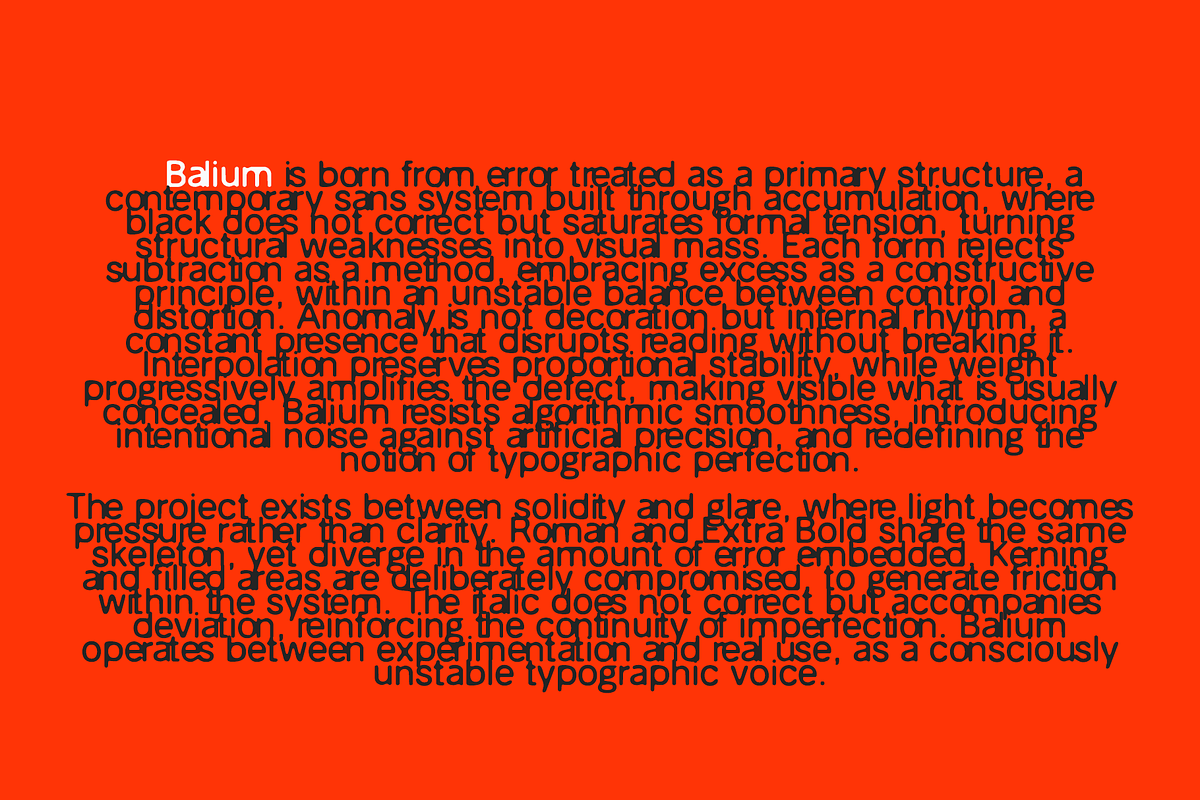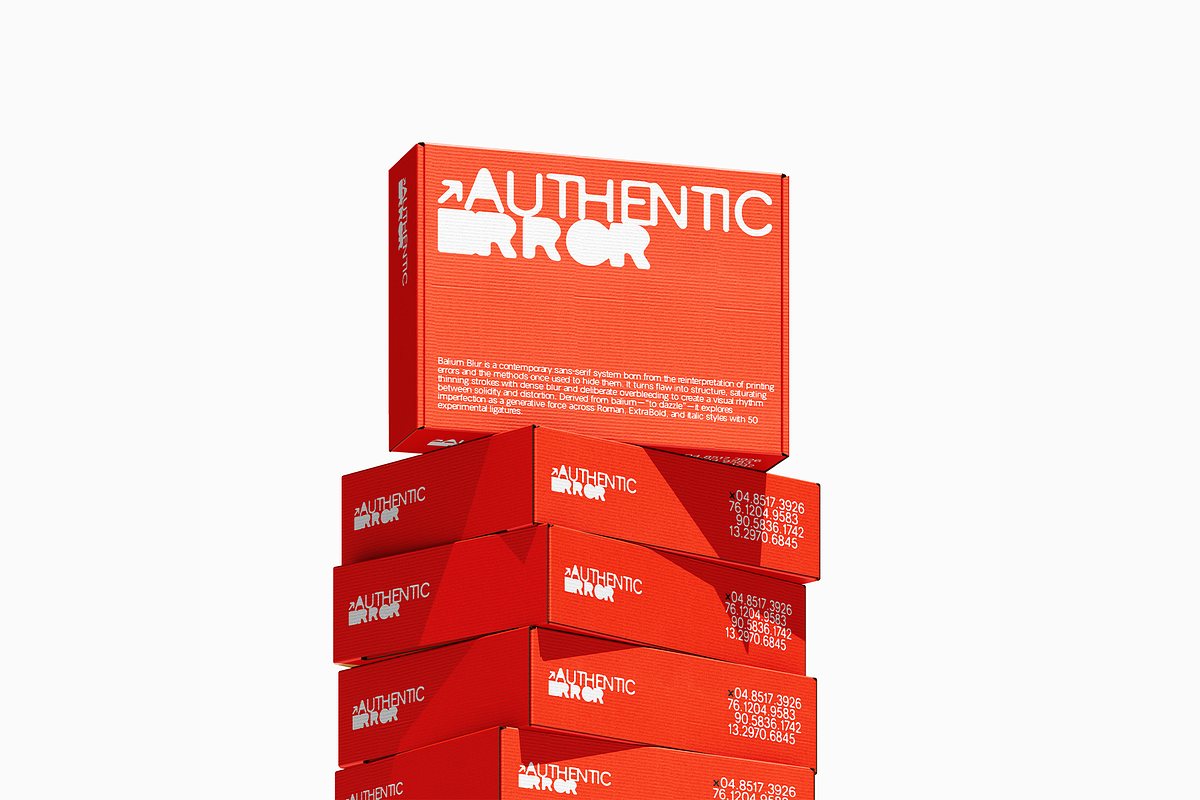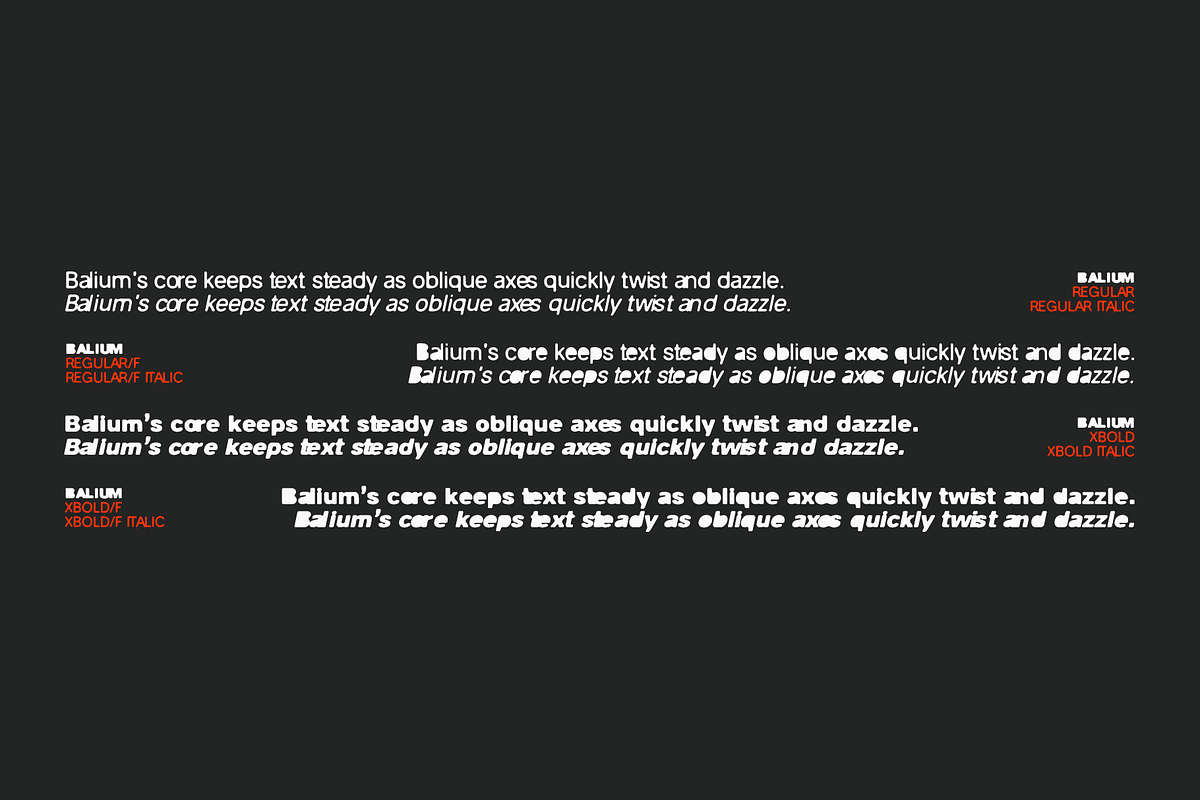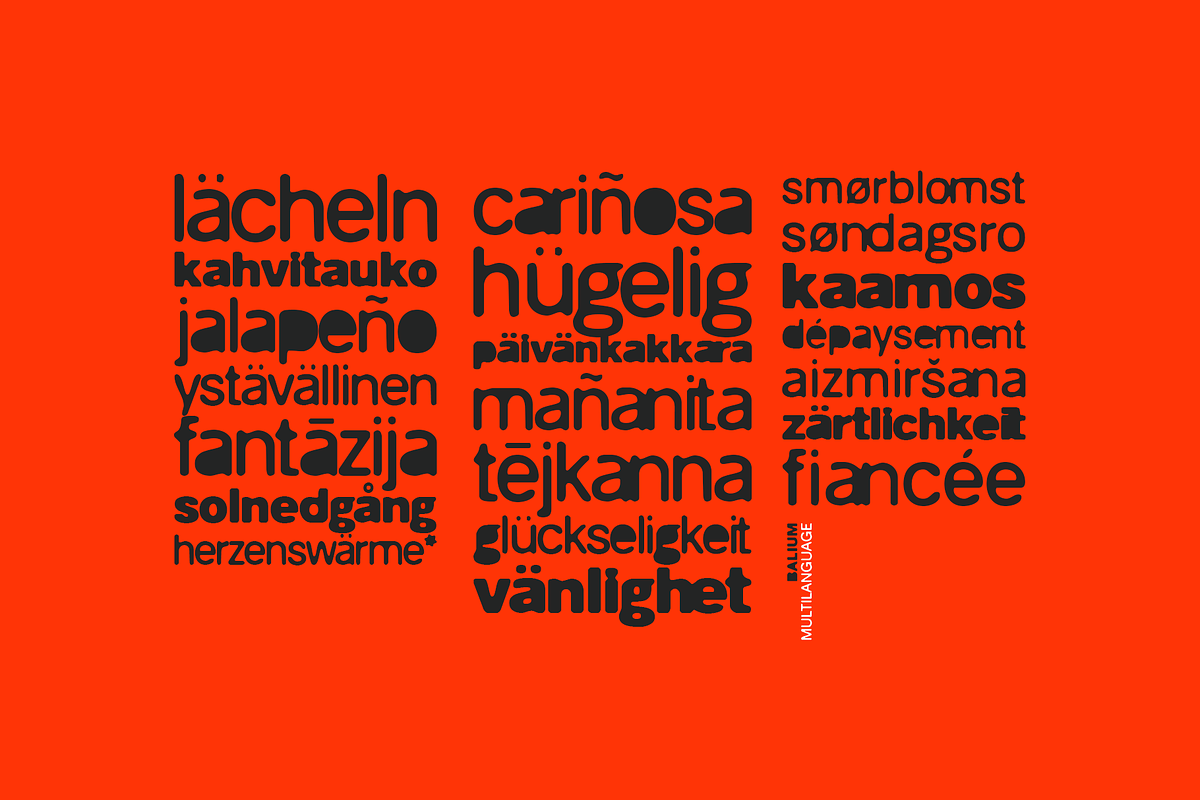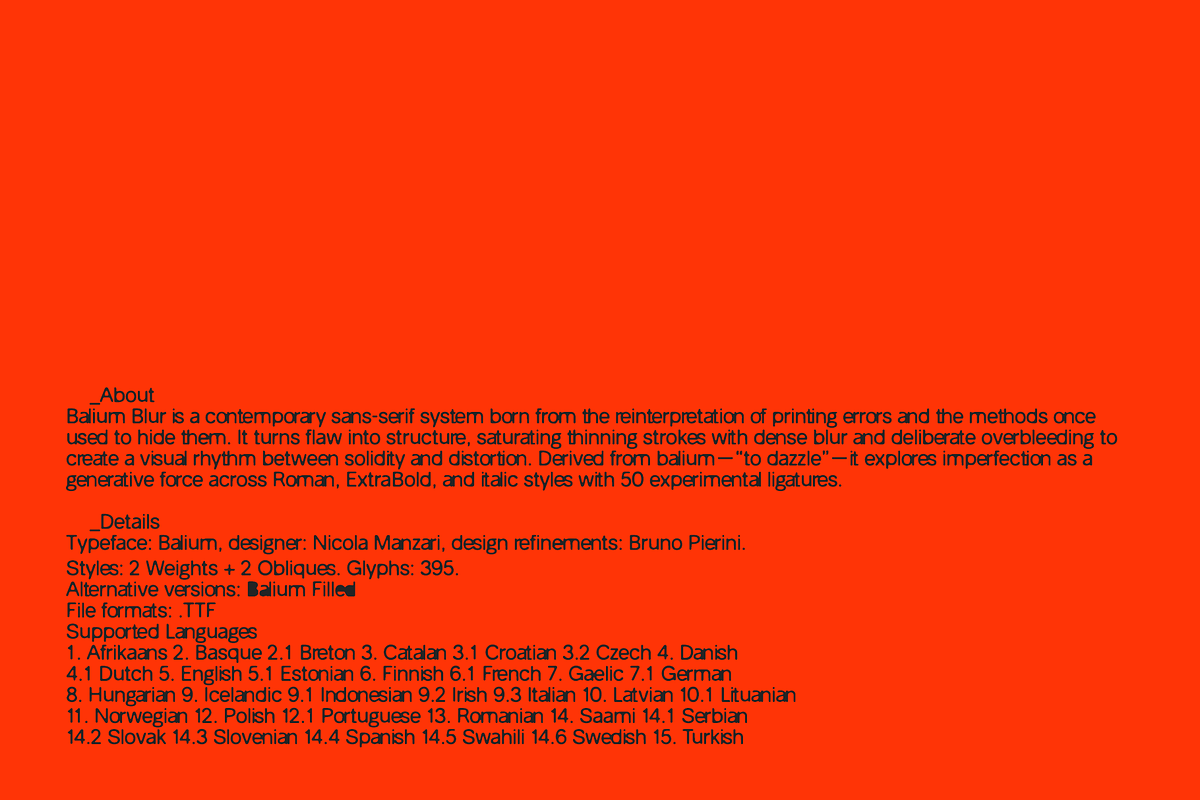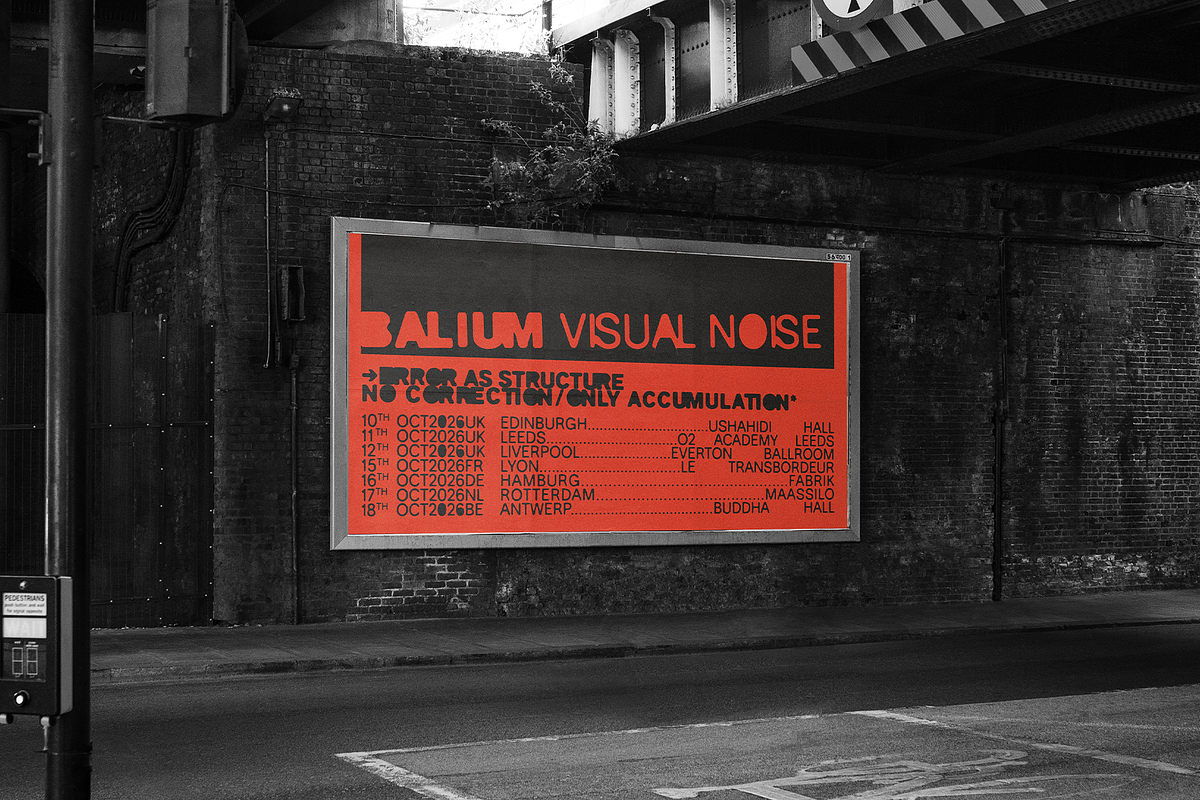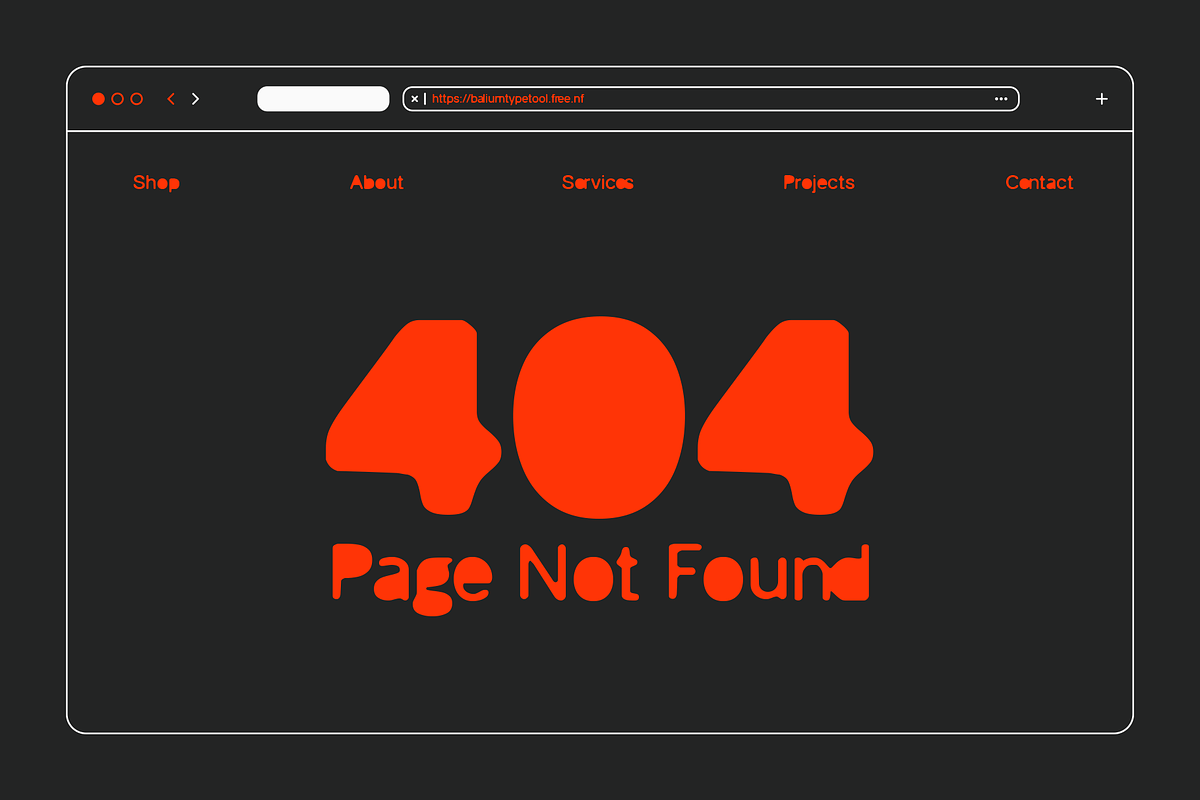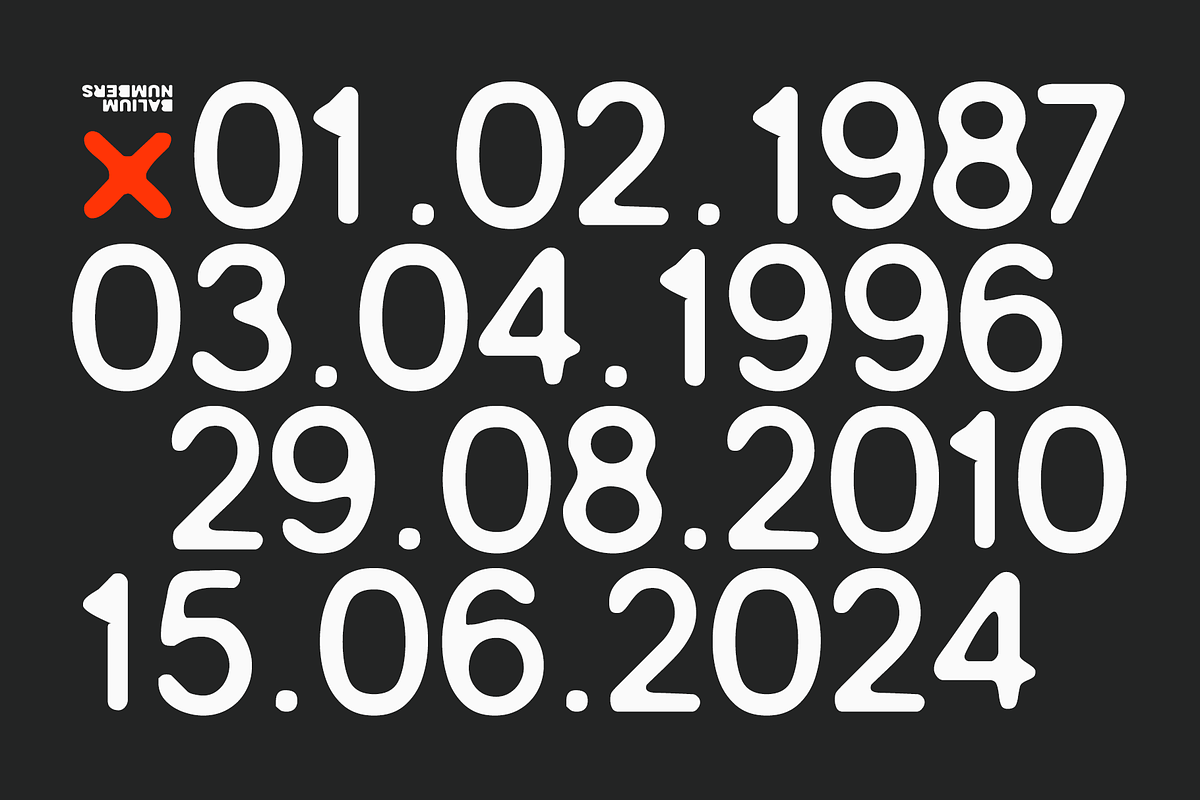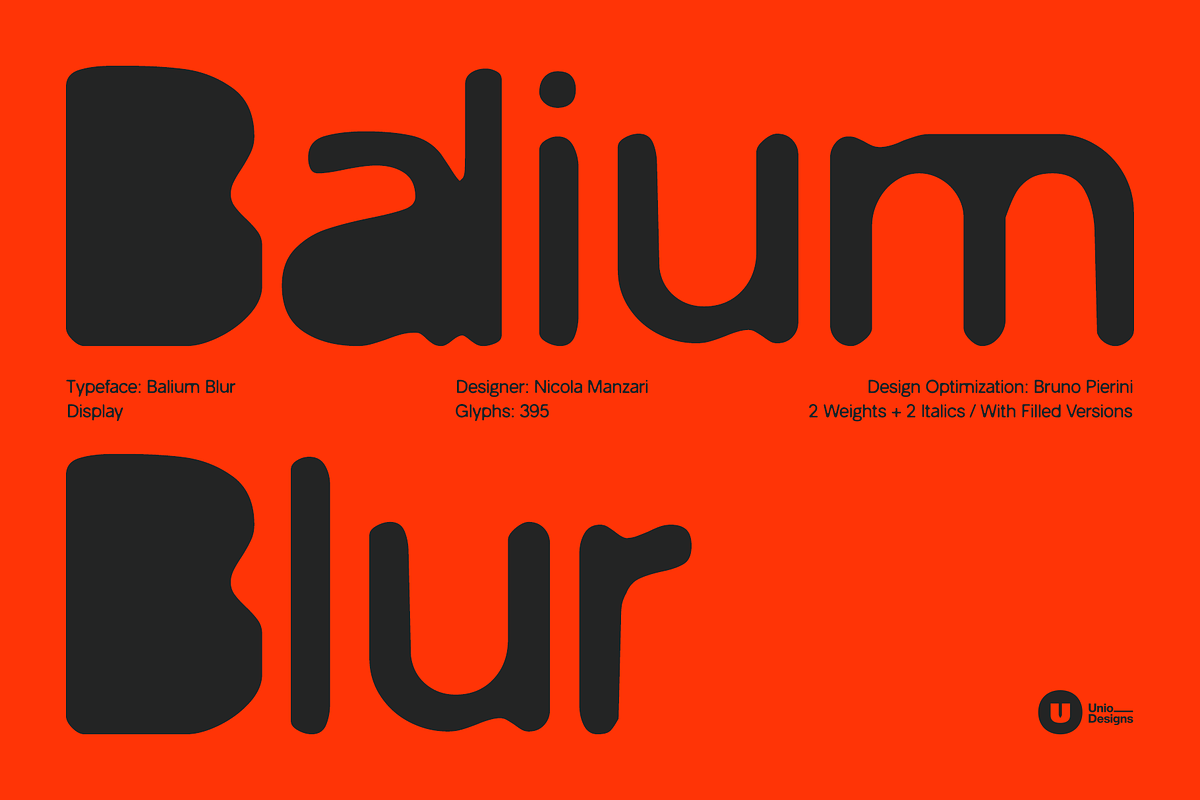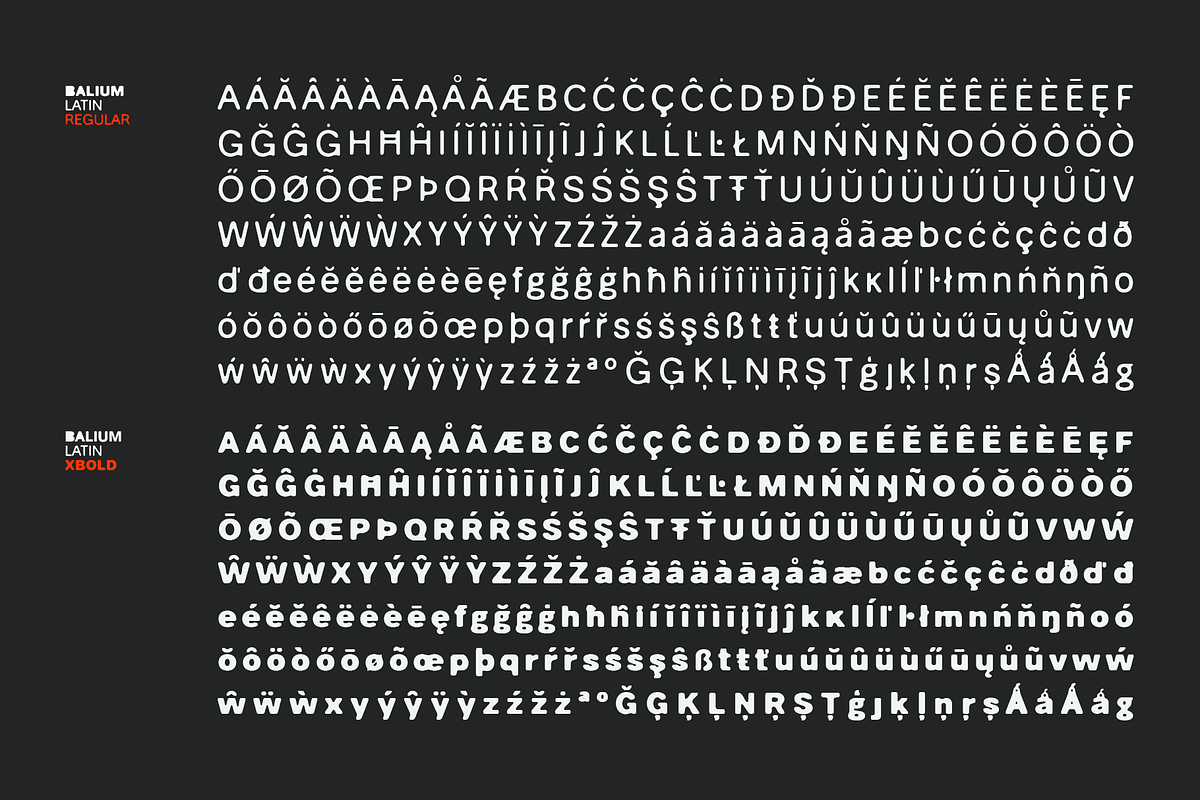
Balium Blur
Balium Blur is a contemporary sans-serif type system born from the deliberate reinterpretation of printing errors and the traditional techniques once used to conceal them. It treats error as an intentional latent flaw: areas that would conventionally require stroke thinning are instead saturated with black, exaggerated blur, and deliberate overbleeding. This approach creates a recurring, irregular visual language that oscillates between solidity and distortion, introducing expressive noise into a visual culture increasingly shaped by algorithmic precision.
The name Balium derives from the Latin balium, associated with the act of abbagliare—to dazzle, to overwhelm with glare or brightness. This notion of glare and visual excess directly informs the typeface’s construction: its forms are not refined by subtraction, but rather built through accumulation, where excess material becomes structure and error transforms into a generative principle.
The family includes Roman and Extra Bold weights featuring the aforementioned overprint effect. Across these styles, Balium Blur progressively intensifies its anomalies, exploring imperfection through the filled style and its consistent pairing with matching italic counterparts.
This version also includes 50 discretionary ligatures, developed from the most common letter bigrams found in text. These ligatures intentionally overbleed the letterforms, creating an “inception” effect within the type system itself—an experiment worth exploring.
Balium Blur is conceived as a versatile yet distinctly experimental voice, capable of shifting fluidly from headline to interface without losing its character. It is designed for brands and designers who embrace controlled imperfection, operating at the intersection of contemporary typography, technology, and visual experimentation.